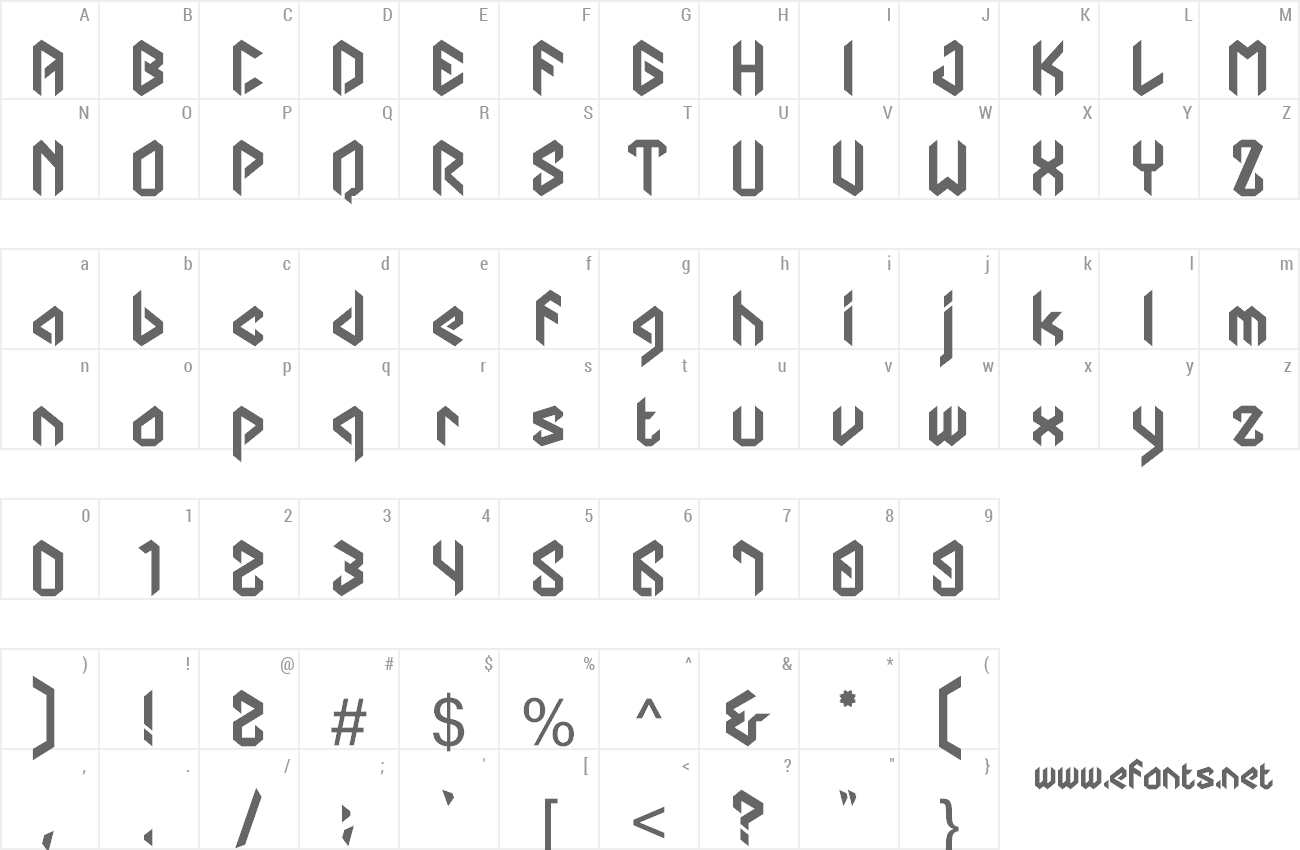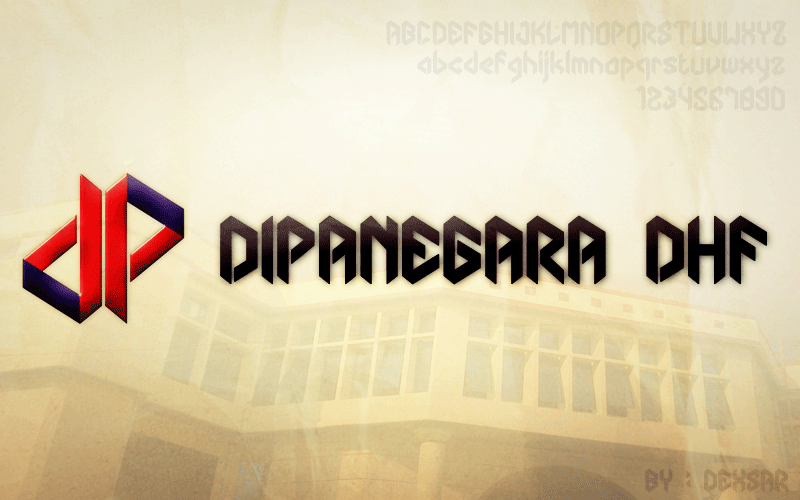
Preview and download Dipanegara Dhf Font. Created by Dexsar Harry Anugrah in Techno Various styles with 100% Free license.
Description : This font was inspired by DIPANEGARA LOGO that is dp. I like the DIPANEGARA LOGO so that i try for making a font is according to DIPANEGARA LOGO theme... Best thanks for the creator of DIPANEGARA LOGO... Visit my store for get the best font by me → http://majestype.com Contact me : - Email : dexsarharryfonts@gmail.com - Facebook : fb.com/dexsarharry - Twitter : @dexsarharry Like my Facebook Page https://www.facebook.com/majestype Donations are also appreciated! Thanks |